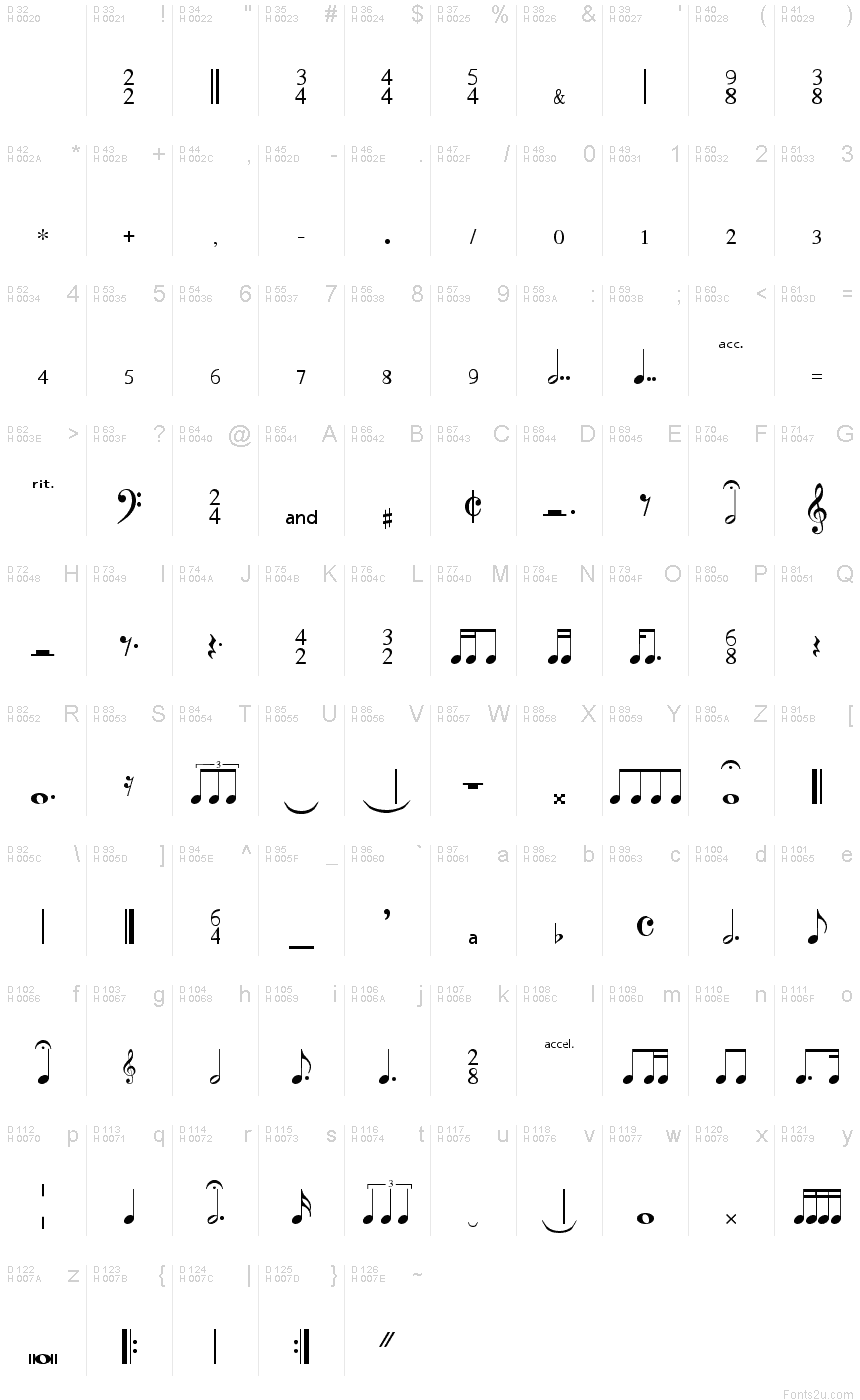
MusiSync by Robert Allgeyer is a free musical notation dingbat font with crisp, simplified note symbols. Rounded noteheads meet straight stems, firm beams, and lively curved flags.
A music school could use these familiar shapes for branding that reads instantly as musical. They also suit concert posters and lesson materials, where individual marks can function as small illustrations rather than ordinary lettering. Invitations and merchandise for recitals can feature the beamed notes and single-note forms.